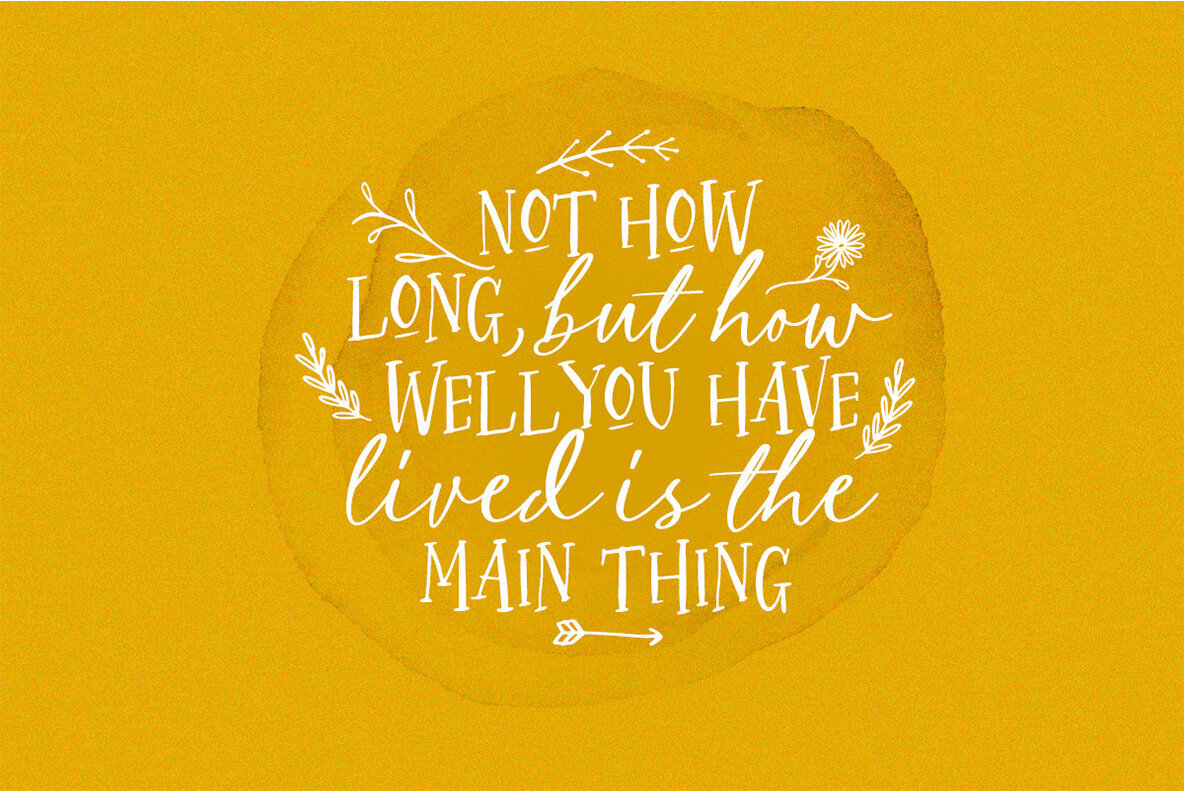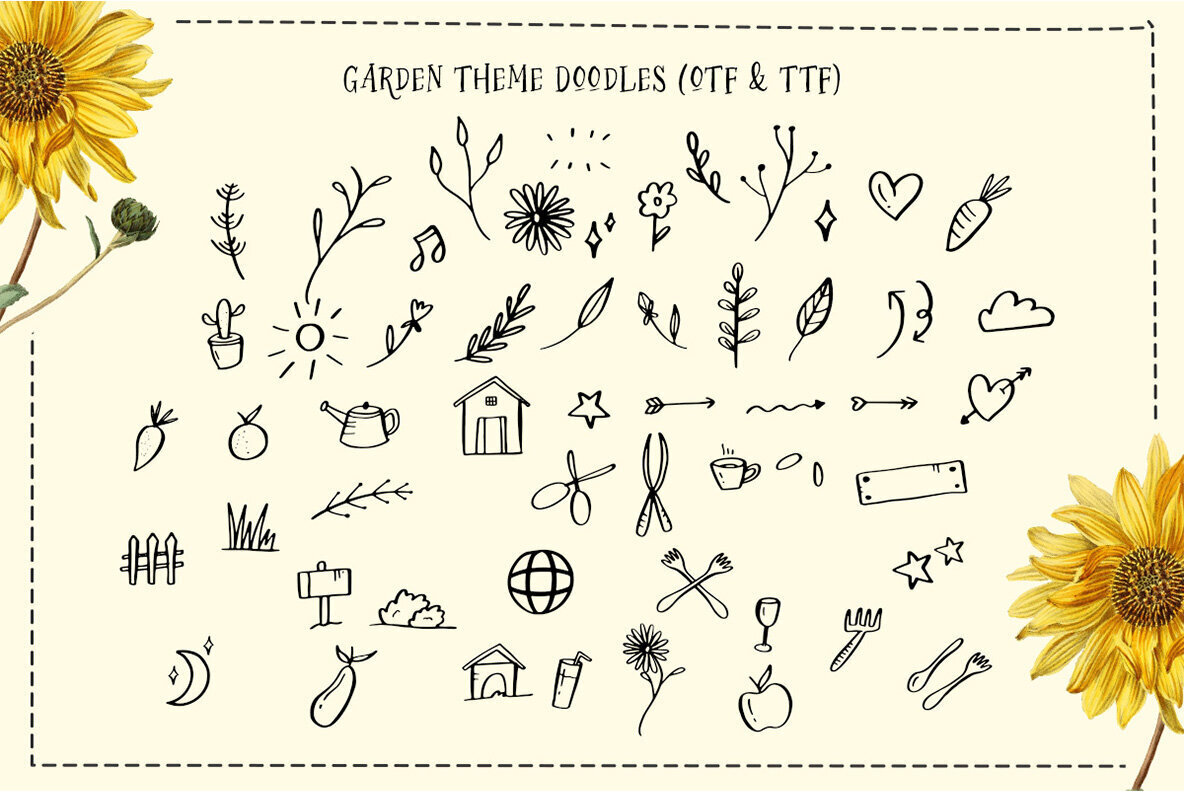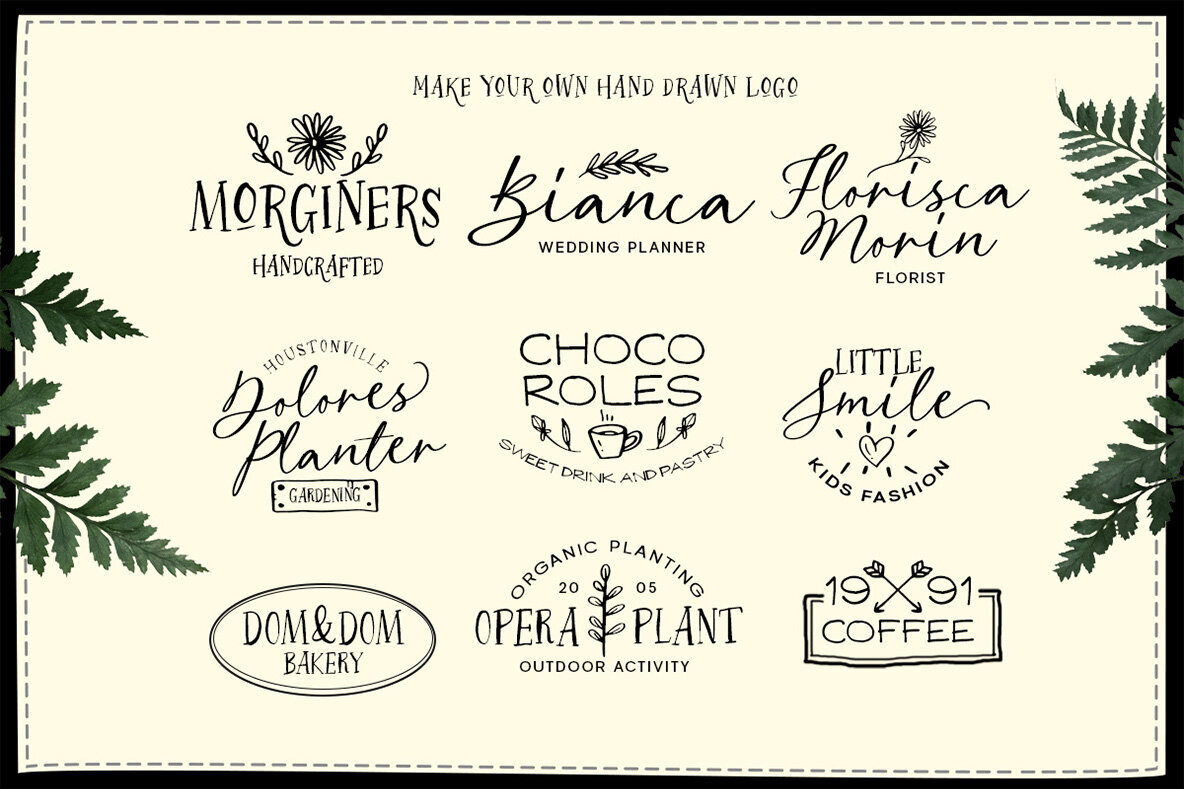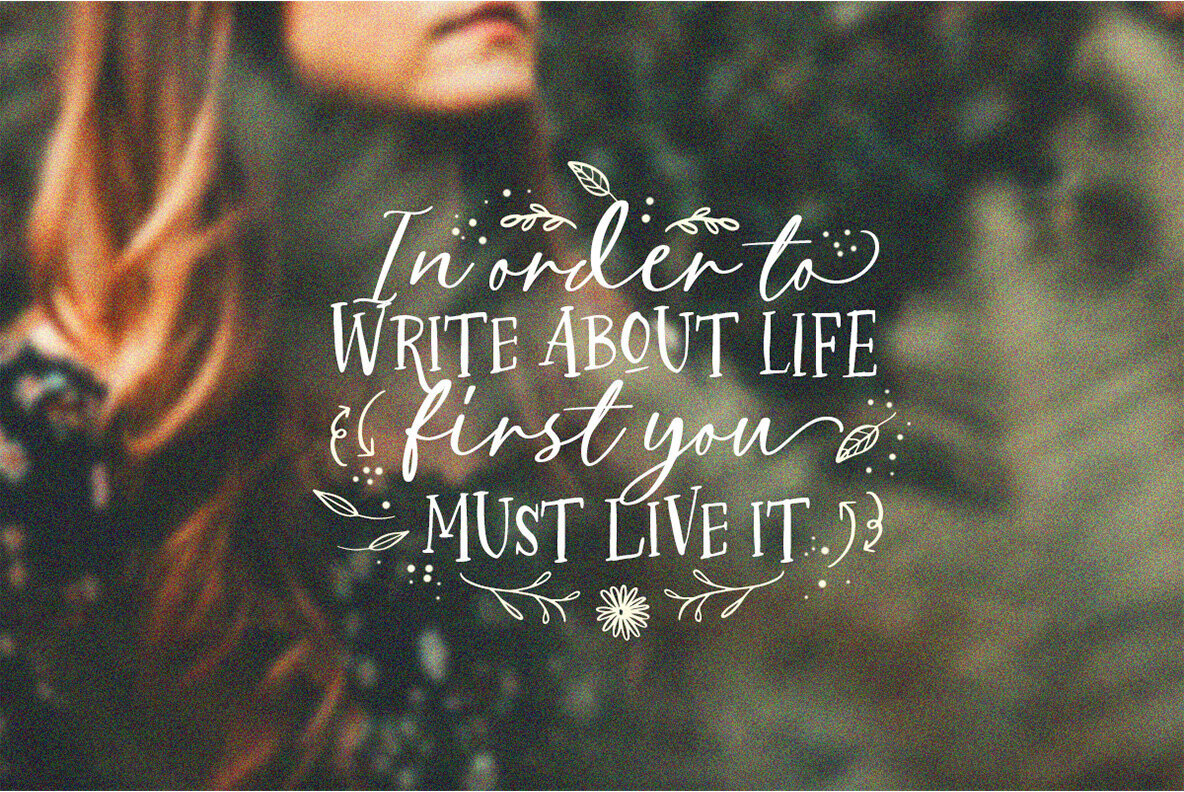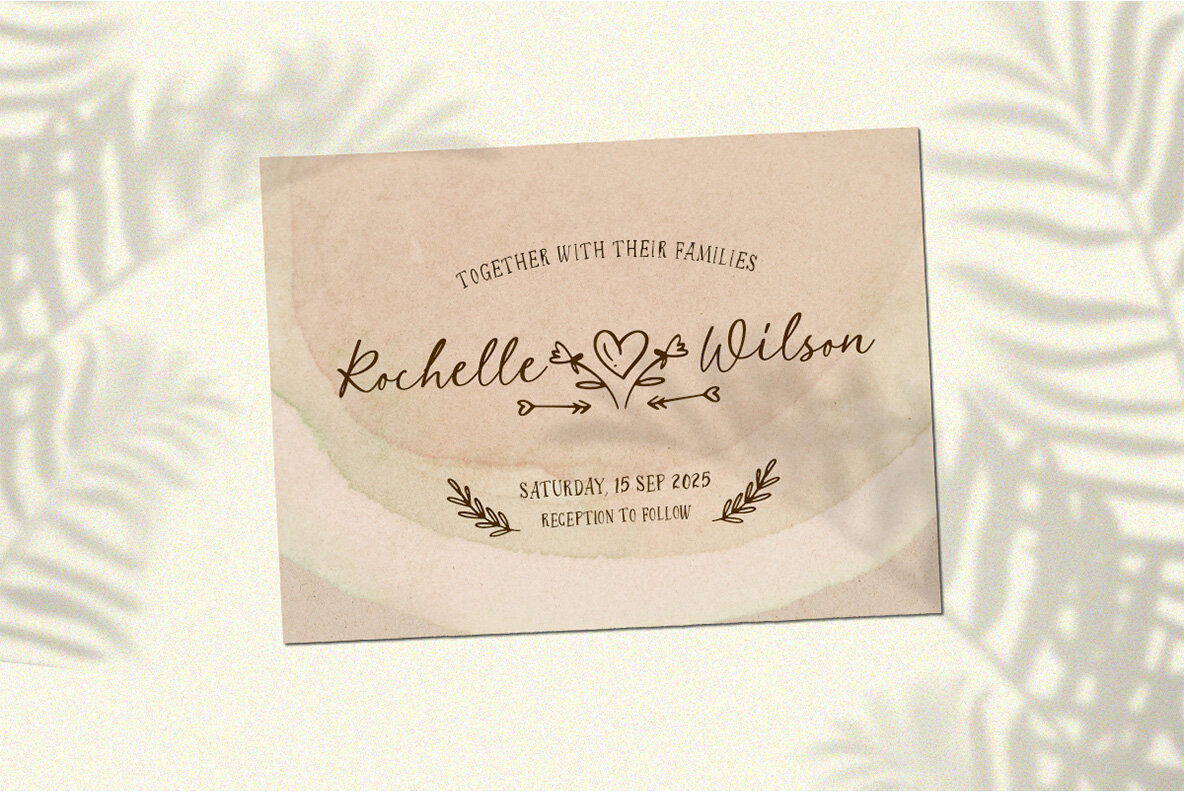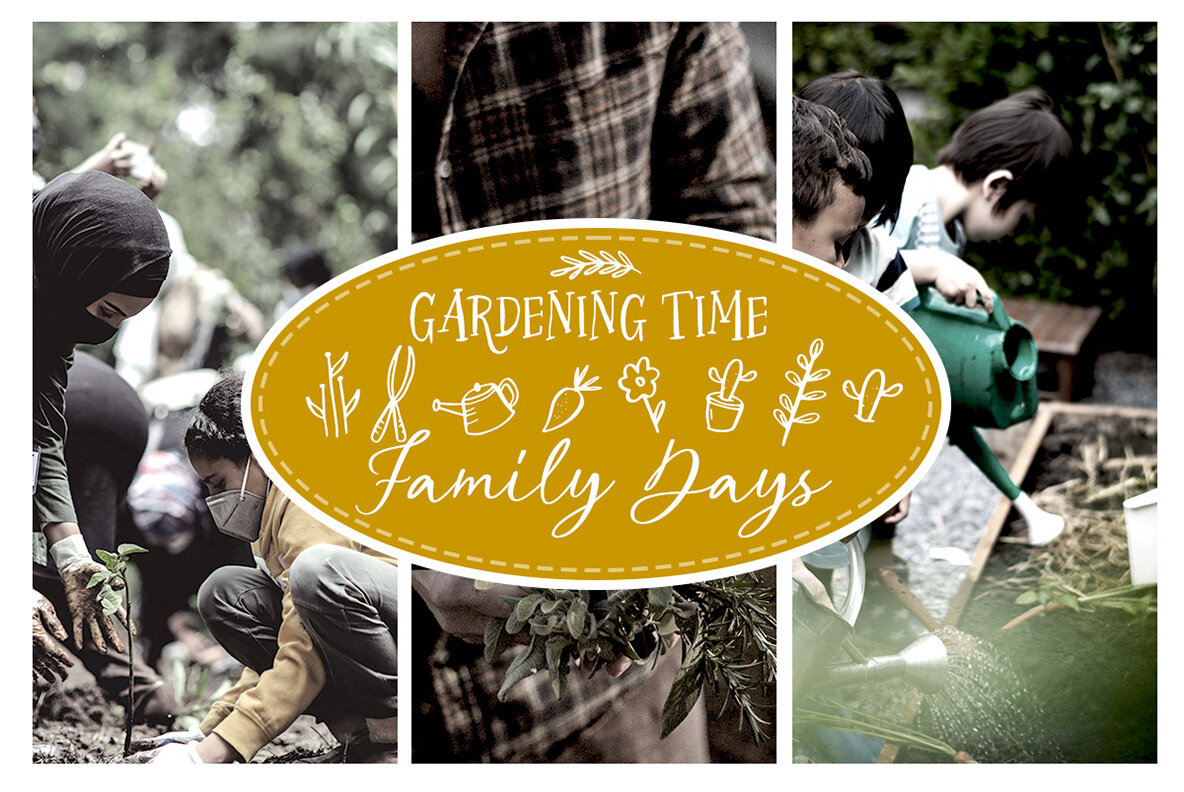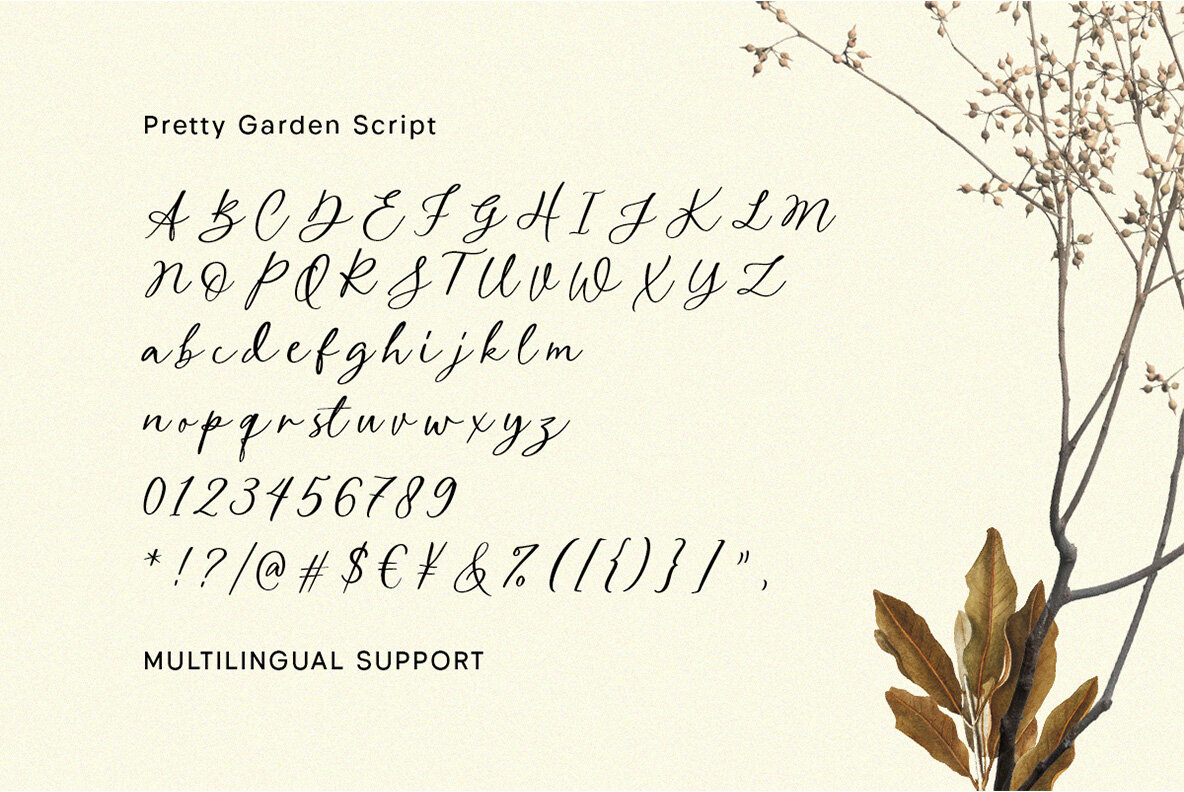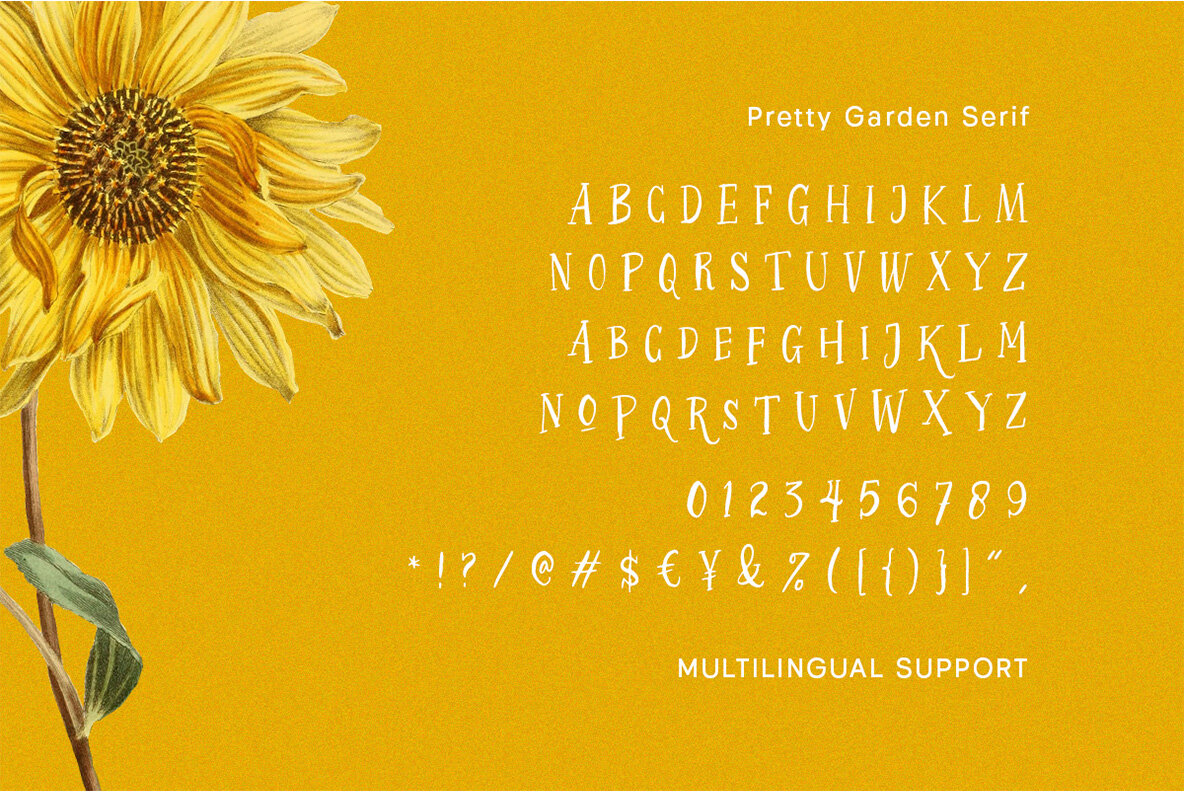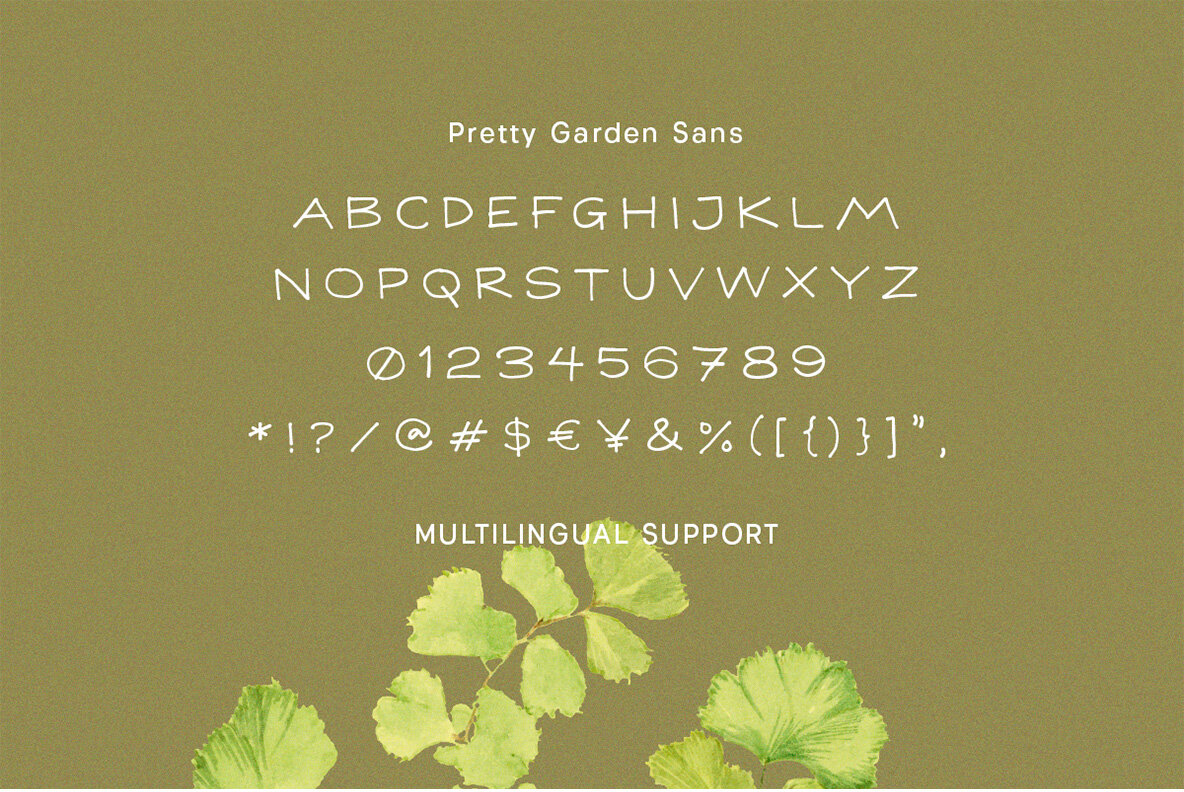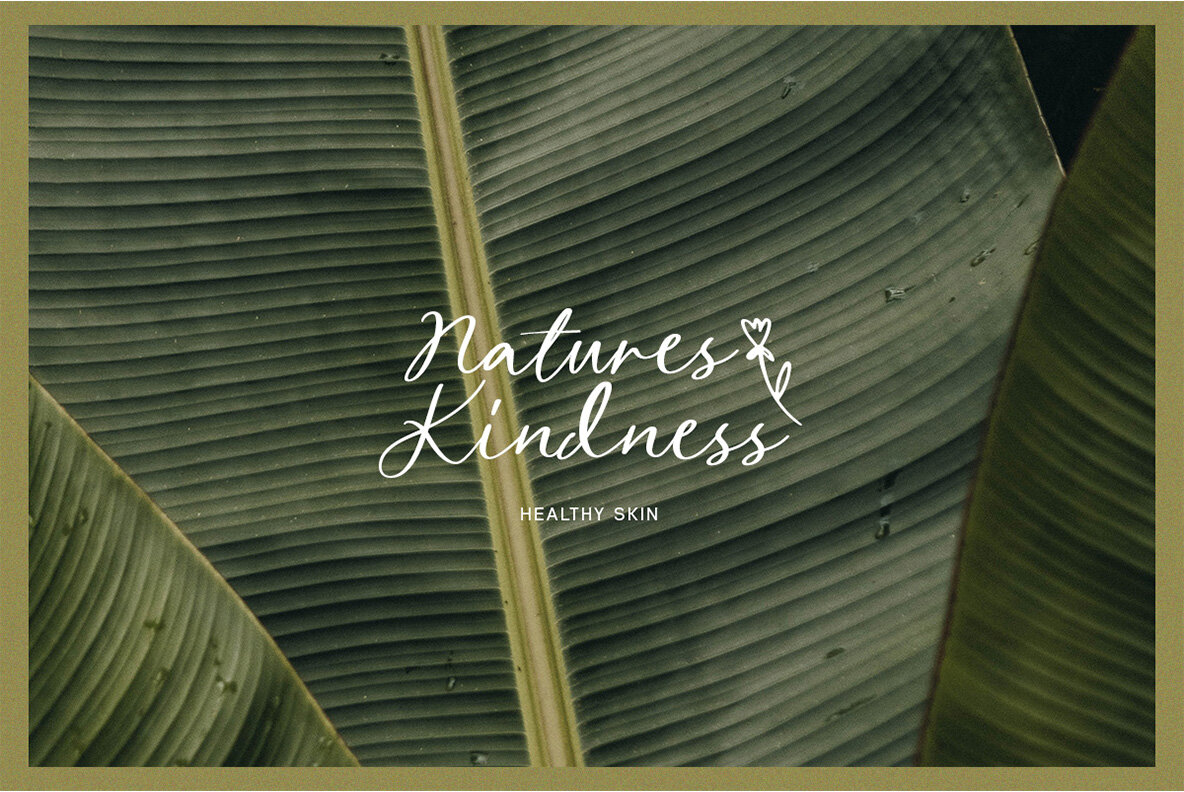
Pretty Garden Font Trio
Garden Doodle Font Trio with Doodle Set (4 fonts)
Explore the charm of authentic handwriting with the Pretty Garden Font Trio by Letterhend Studio. This cohesive collection, which includes three distinct fonts accompanied by whimsical doodle dingbats, captures the essence of natural signature style. Ideal for a wide range of formal applications, these fonts effortlessly enhance logos, invitations, labels, magazines, books, greeting or wedding cards, and more. The ability to seamlessly blend these fonts provides versatility for creative directors and graphic designers. To fully utilize the beautiful glyph variations, it's recommended to use software that supports OpenType features and Glyphs panels, such as Adobe apps or CorelDraw. For detailed instructions, visit Letterhend's tutorial at ....Pretty Garden Font Trio: Handwriting Style with Natural Flair